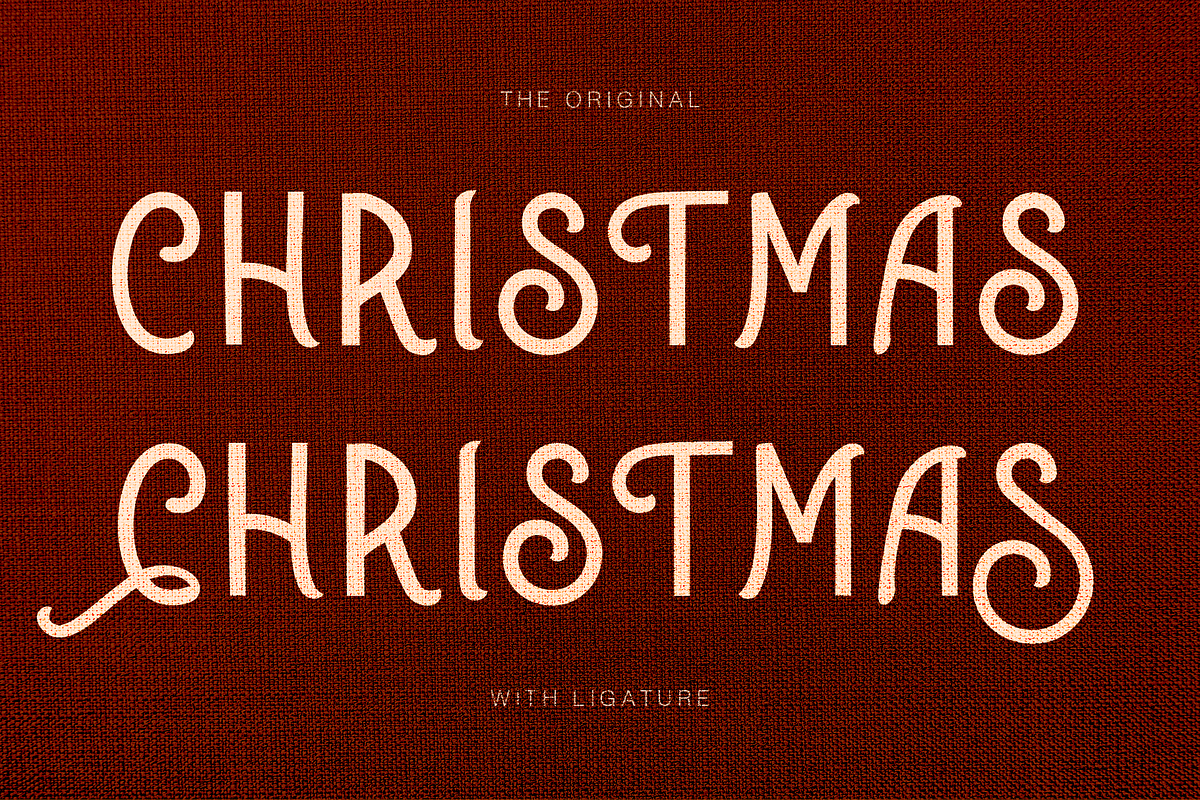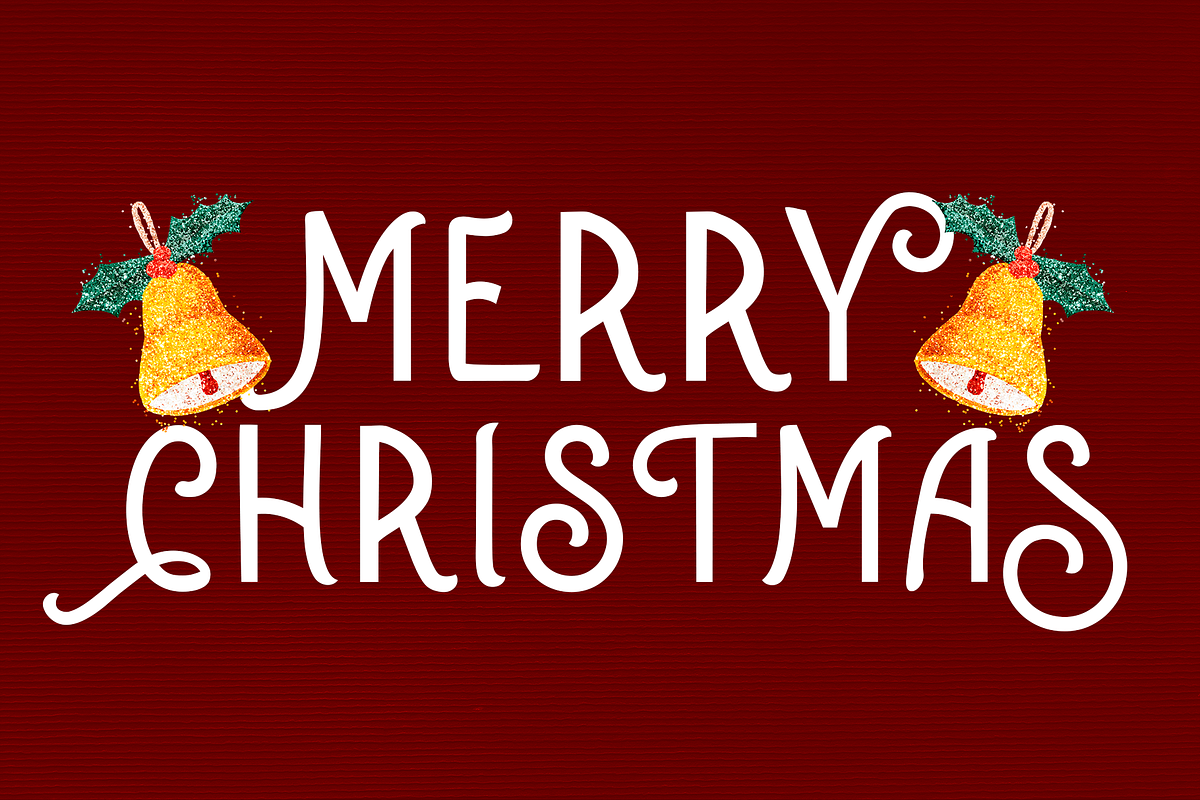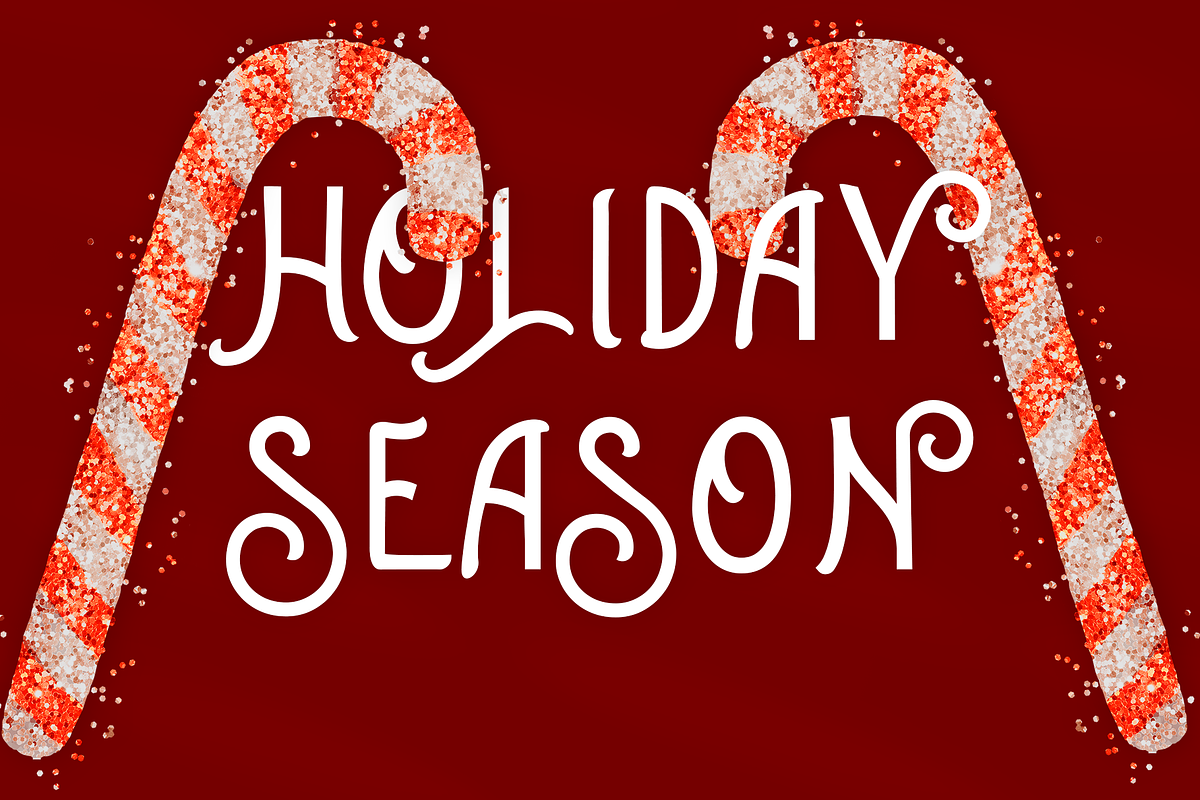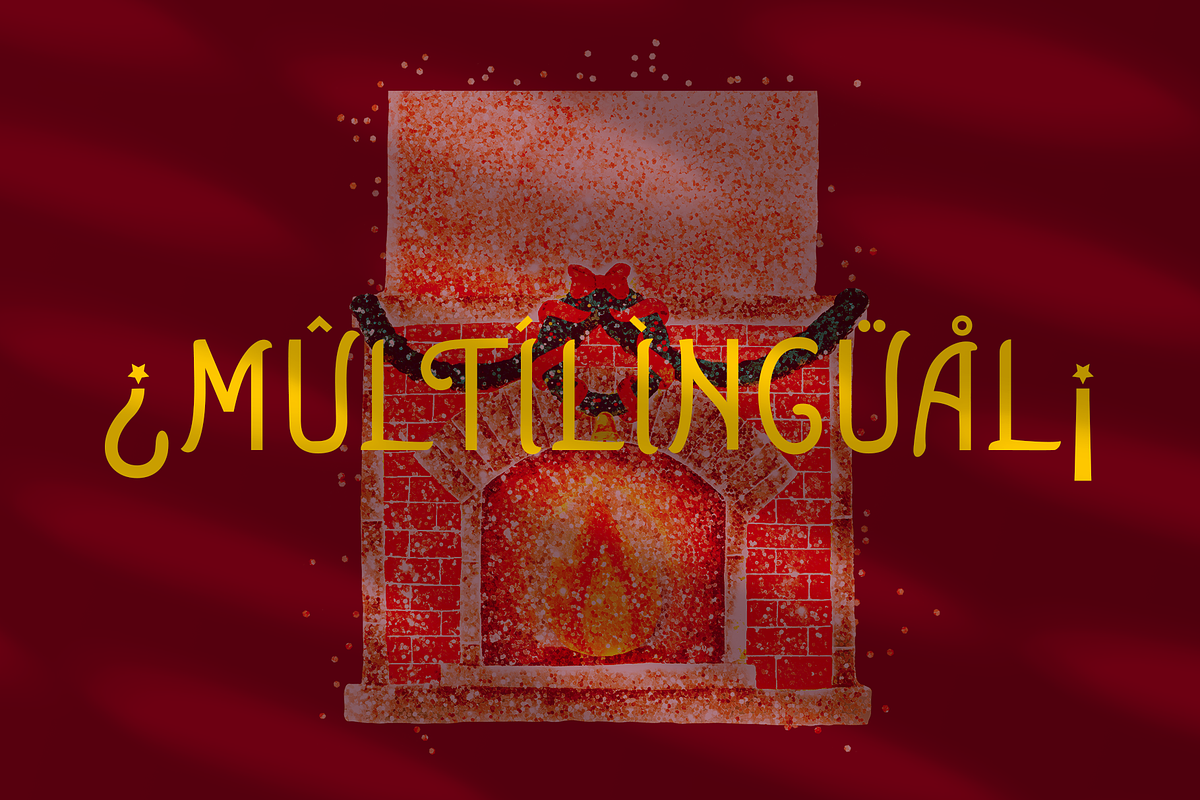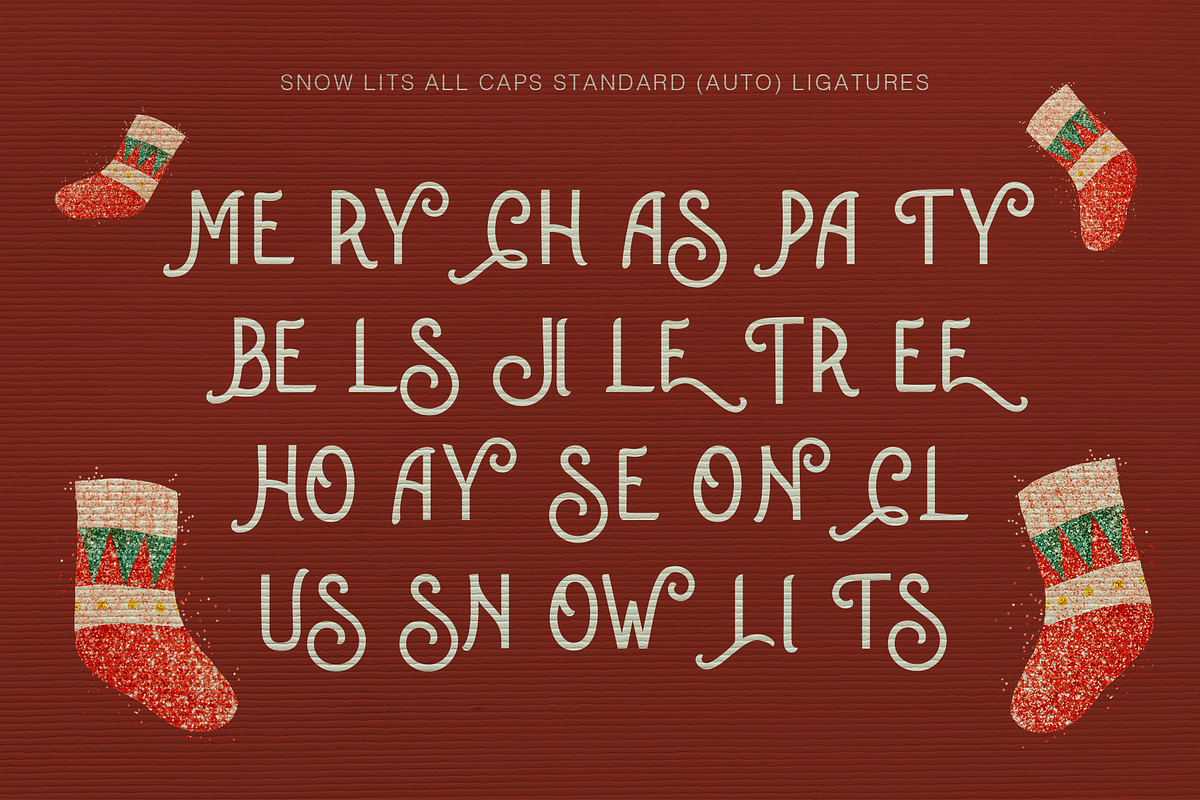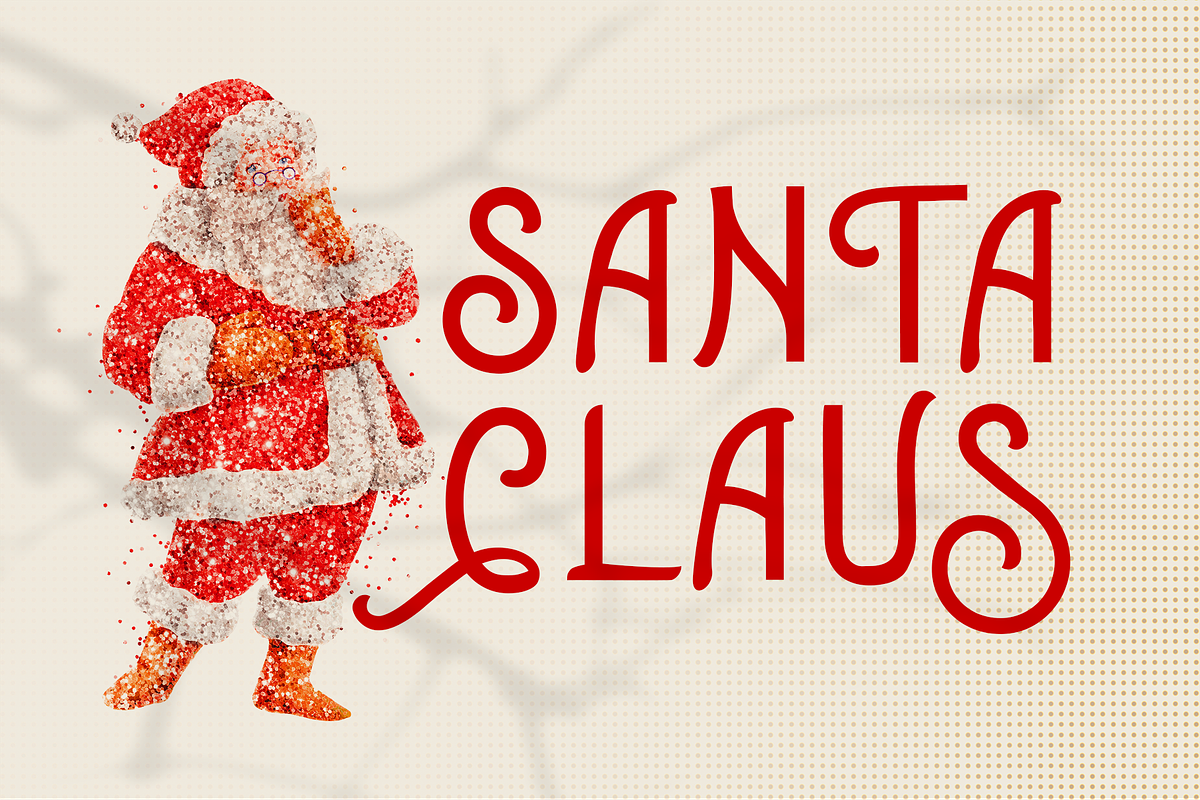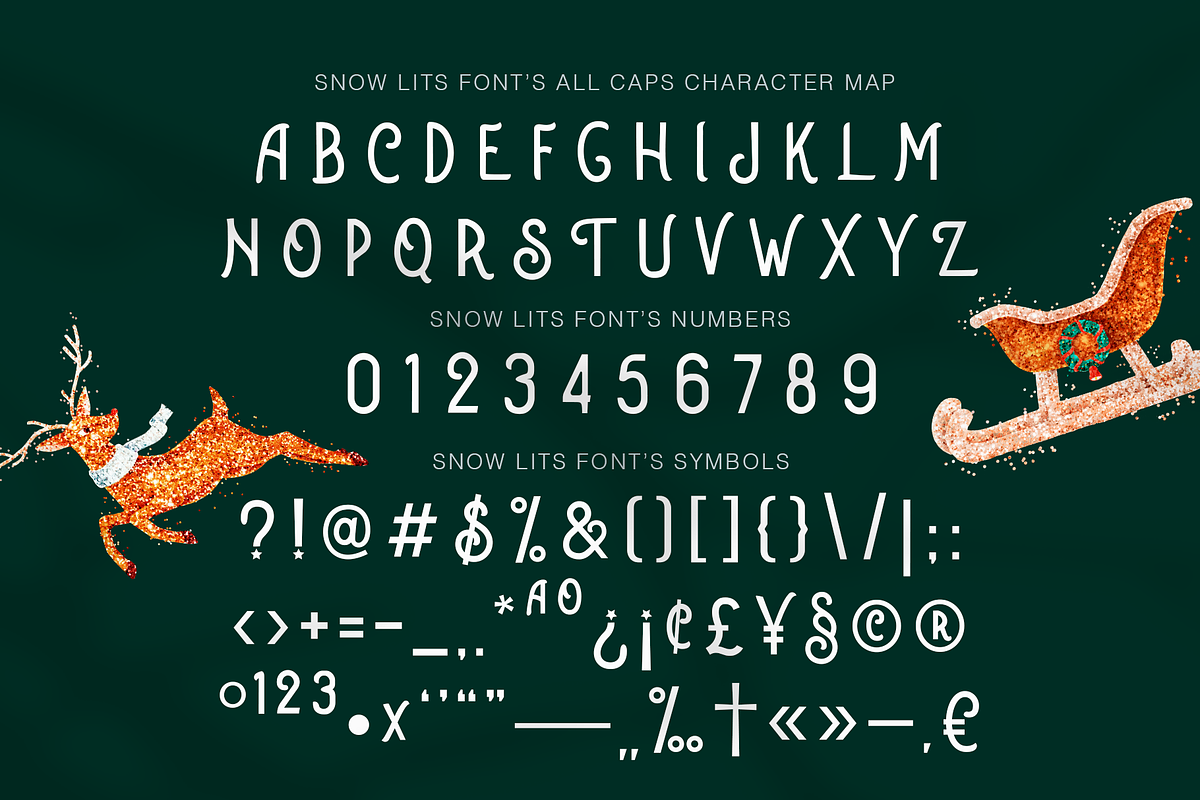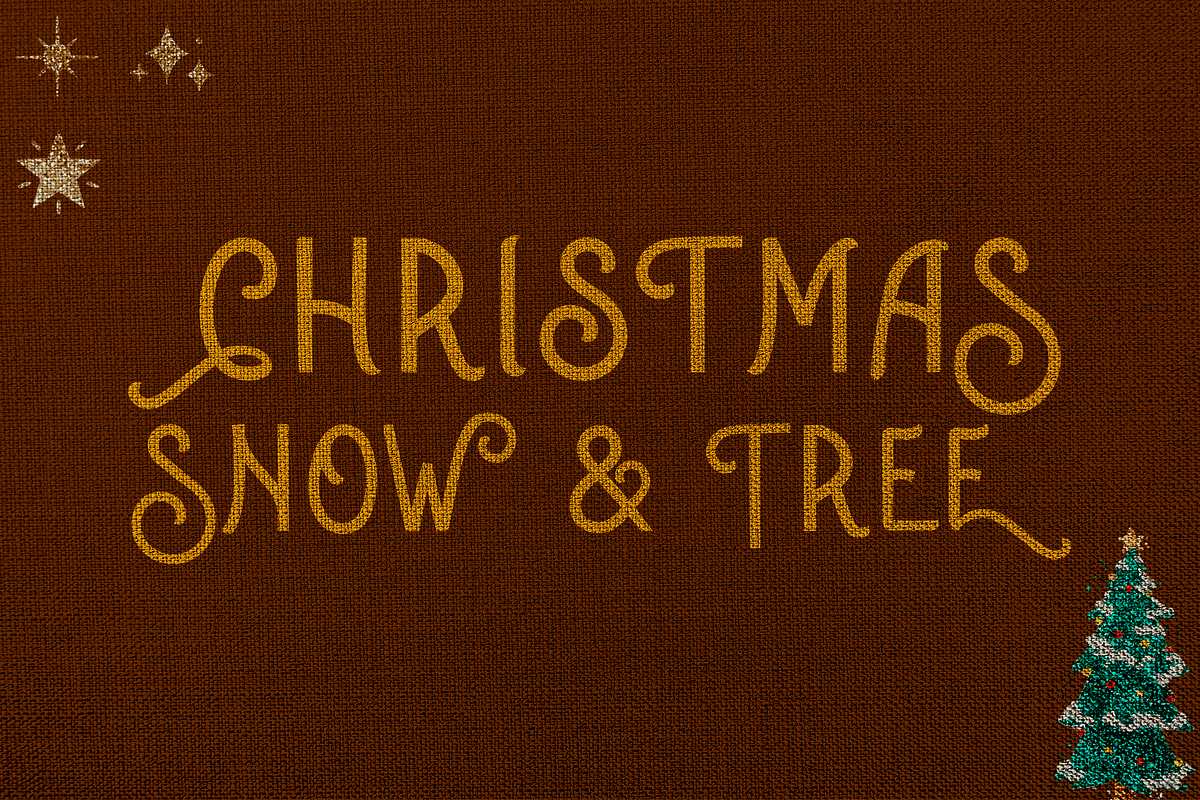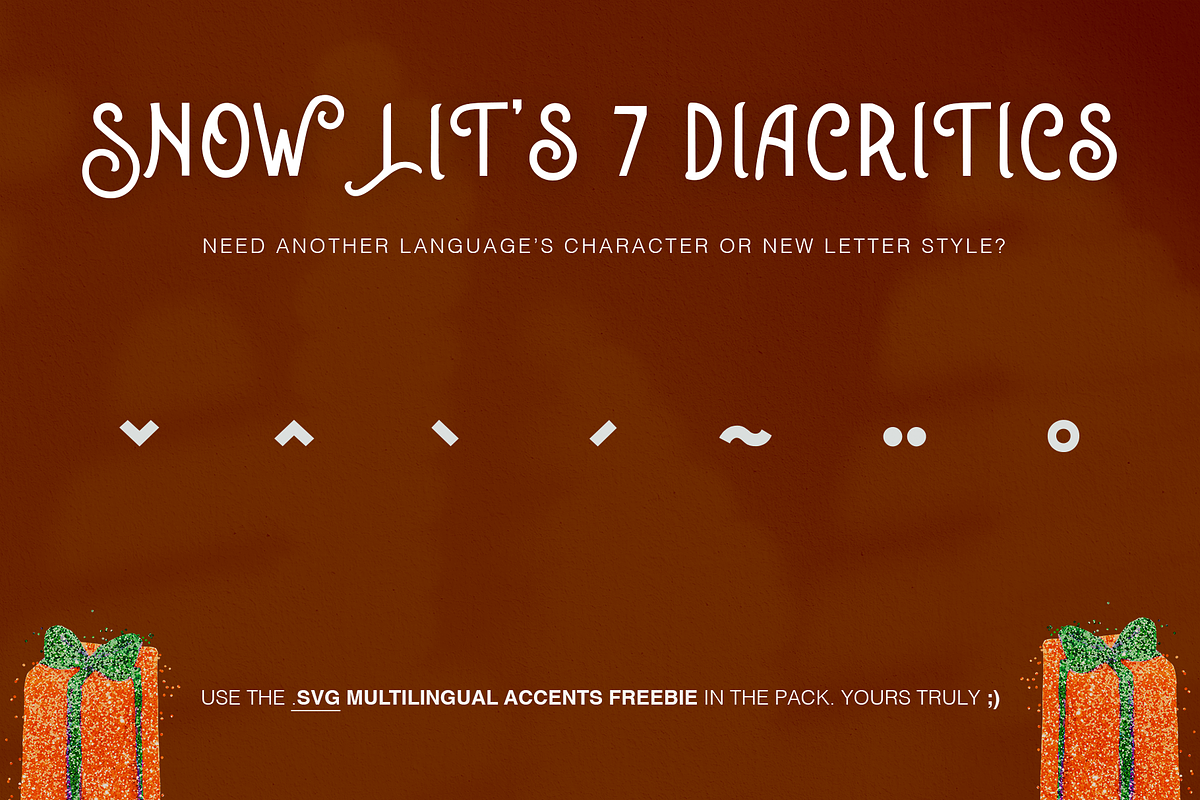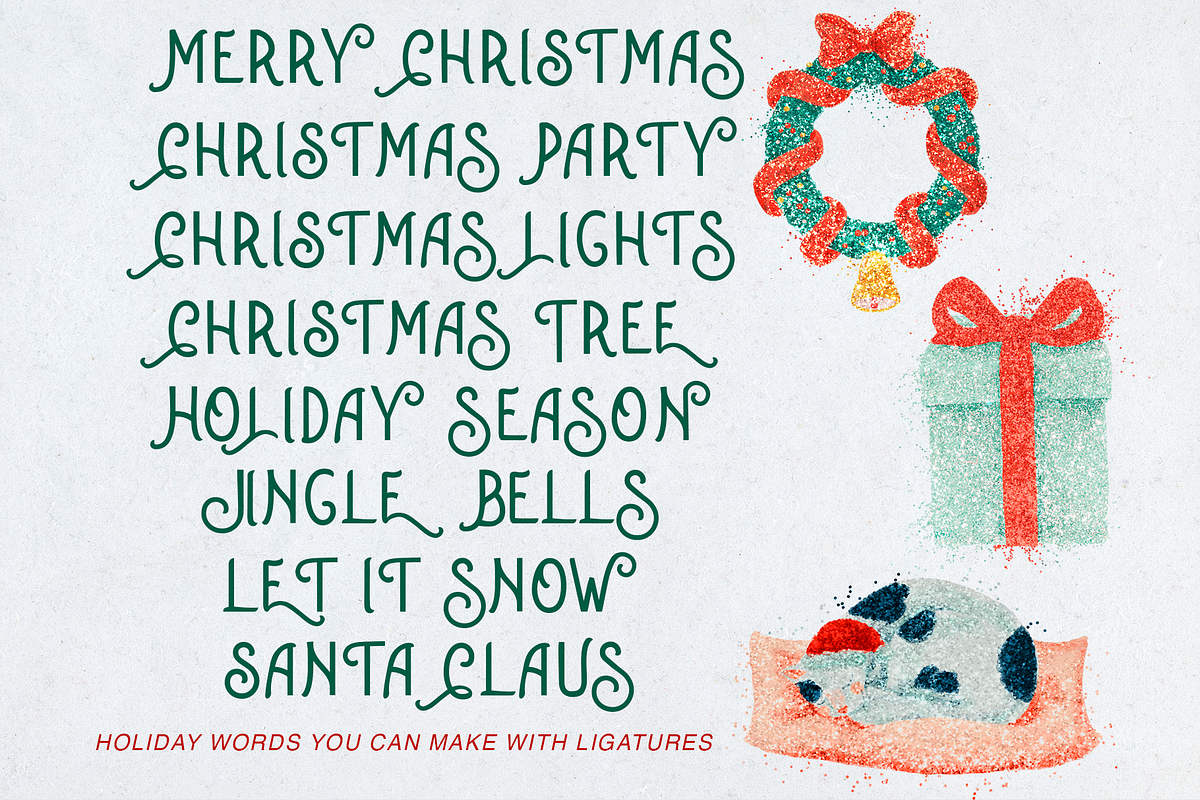
Snow Lits Christmas Holiday Display
Meet Snow Lits, a new Christmas Holiday Display Typeface of the 21st century. It has a modern & retro mix style and comes with swashes & swirls ligatures I designed intentionally for making holiday words to use for your social media posts, advertising and greeting cards this Holiday Season! You can even make a branding refresh, limited edition productions this Holiday season so your customers get excited! ;) It's a very versatile font that works as standalone or paired with other fonts.
- Weight - Regular
- All Capital Characters
- Swash & Swirl Embedded Ligatures
- Multilingual Characters
- Language Support: Western Europe
Bonus: 7 Multilingual Accents in .svg file - also known as diacritics so I can hopefully cover more languages :)